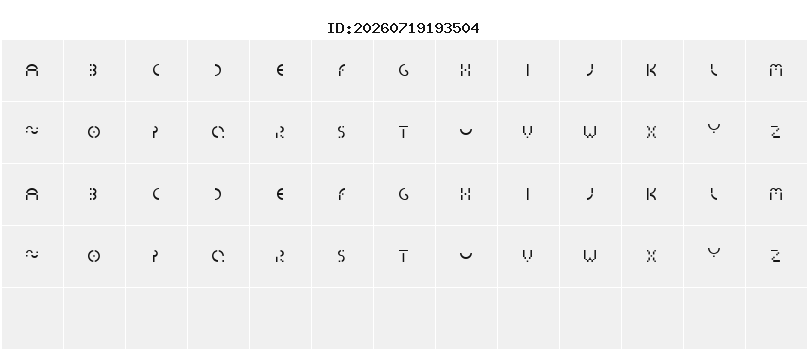
essedicom Preview
About essedicom.ttf
essedicom.ttf is a modern, elegant sans-serif font designed for ultimate readability and visual harmony. Perfect for branding, headlines, web design, and print materials.